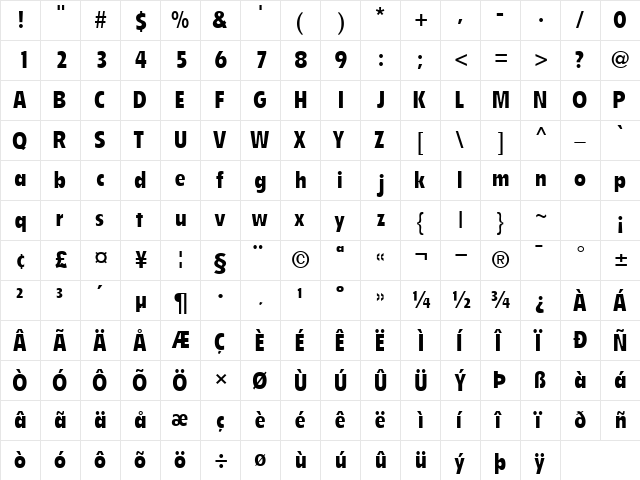
EmphasisCondSSK Bold Font Preview
EmphasisCondSSK Bold
EmphasisCondSSK Bold Font Details
Design Context for EmphasisCondSSK Typeface
EmphasisCondSSK offers clean, dependable letterforms without strong stylistic allegiance, making it a practical choice for designers who need flexibility. Its bold stroke weight gives it real presence on the page. Its narrow stance lets it pack a punch even in space-constrained designs.